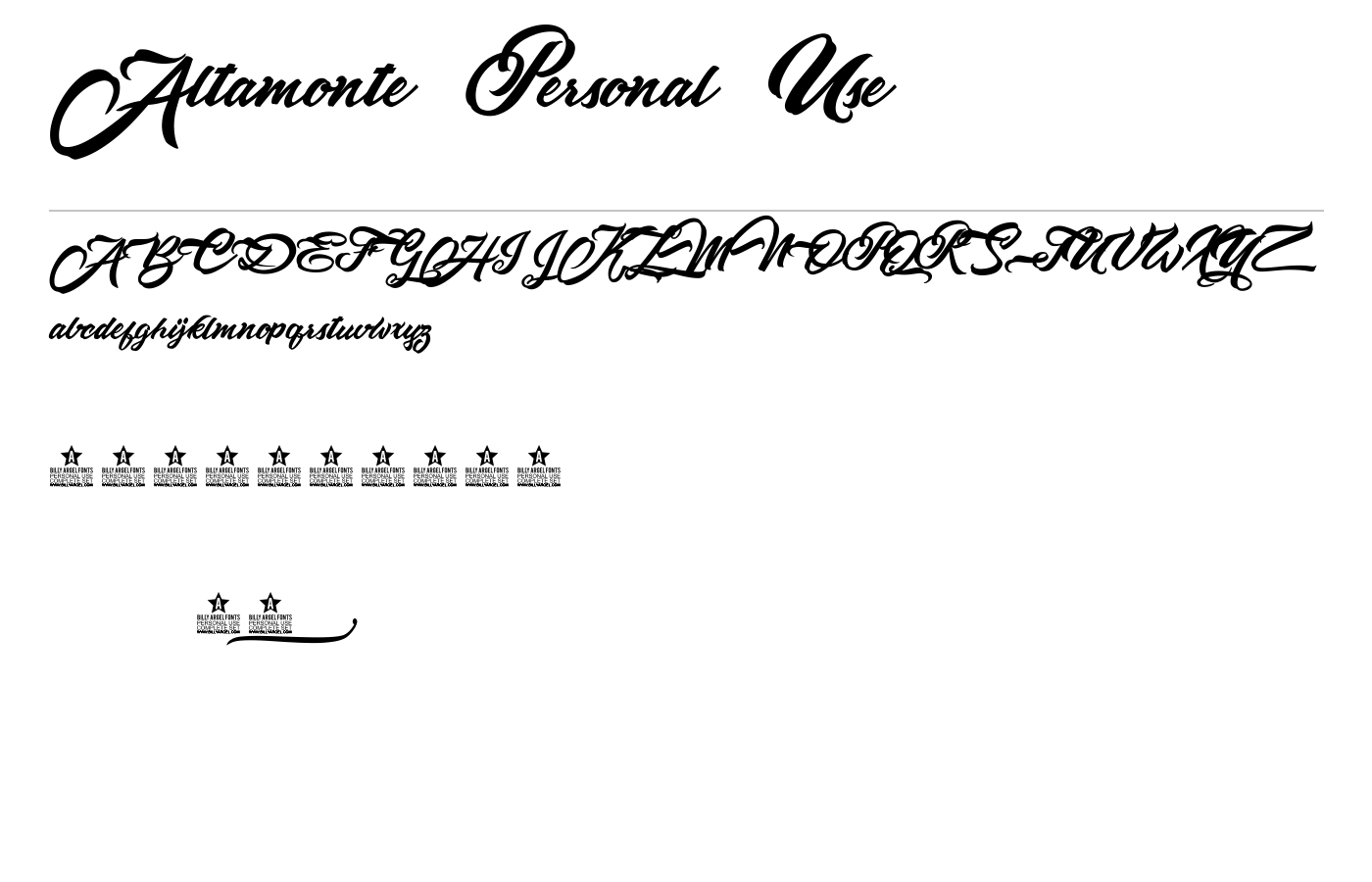
Altamonte Personal Use is an elegant script font featuring fluid, calligraphic strokes with moderate contrast and a graceful flowing style. Its cursive letterforms and ornamental swashes evoke a classic, sophisticated feel, making it ideal for invitations, branding, and decorative headlines where a refined, personal touch is desired. This font works best in designs seeking a stylish, vintage-inspired elegance.
Altamonte Personal Use Font
About Altamonte Personal Use Font
| Font family | Altamonte Personal Use Font |